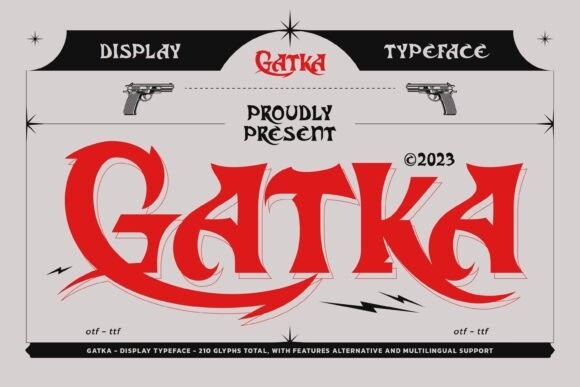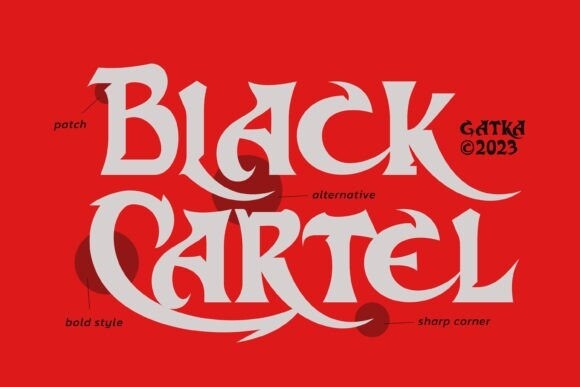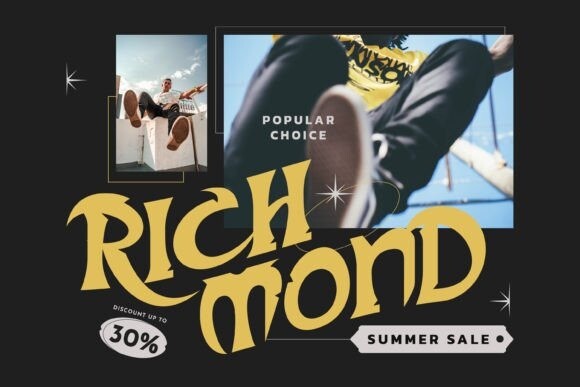
Gatka Font
Gatka is a strong and powerful display font perfect for any design you wish to create! Add it now to your favorite creative projects, and notice how it makes them come alive!